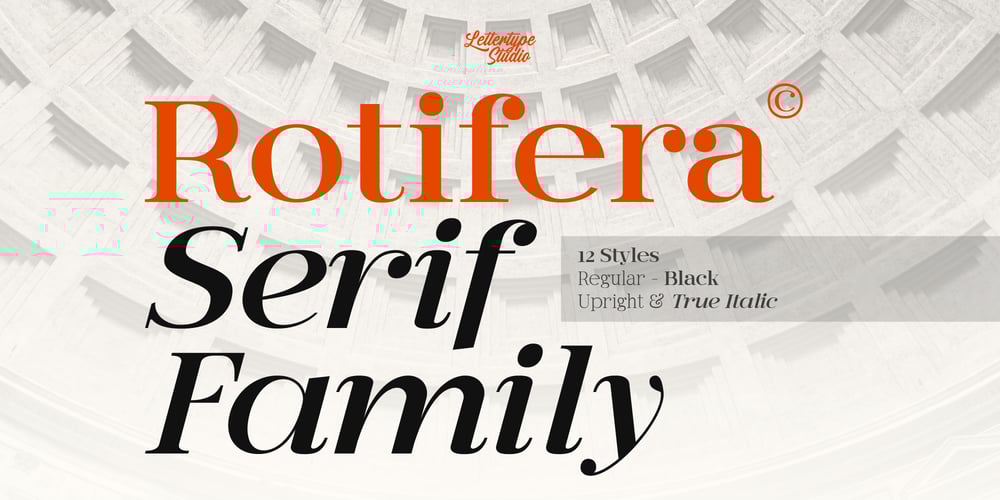
Rotifera Font Family was designed by Diki Pradipta Tri Atmojo and published by Lettertype Studio. Rotifera contains 12 styles and family package options. Rotifera is a Luxury and elegant high-contrast serif font with a classic style inspired by 18th-century typography. Perfect for sophisticated branding, editorial design, web typography, and much more. These fonts offer timeless appeal with clean lines, geometric and luxurious details, ensuring your projects stand out with elegance and style. Ideal for designers seeking versatility and refinement in their typography choices.Rotifera offering multiple styles from regular to black with true italic and multilingual support, elevates your digital and print creations with a unique modern and vintage flair. This font works in large and small sizes and includes 12 styles upright & italic. Featuring 18+ unique & stunning ligatures, 260+ language support, and multilingual supports.